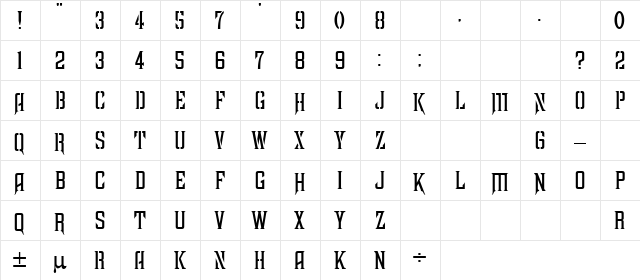
Farquharson Regular
Design Context for Farquharson Typeface
Farquharson takes a measured approach to typography — its balanced proportions and neutral character make it a reliable workhorse for both digital and print work.